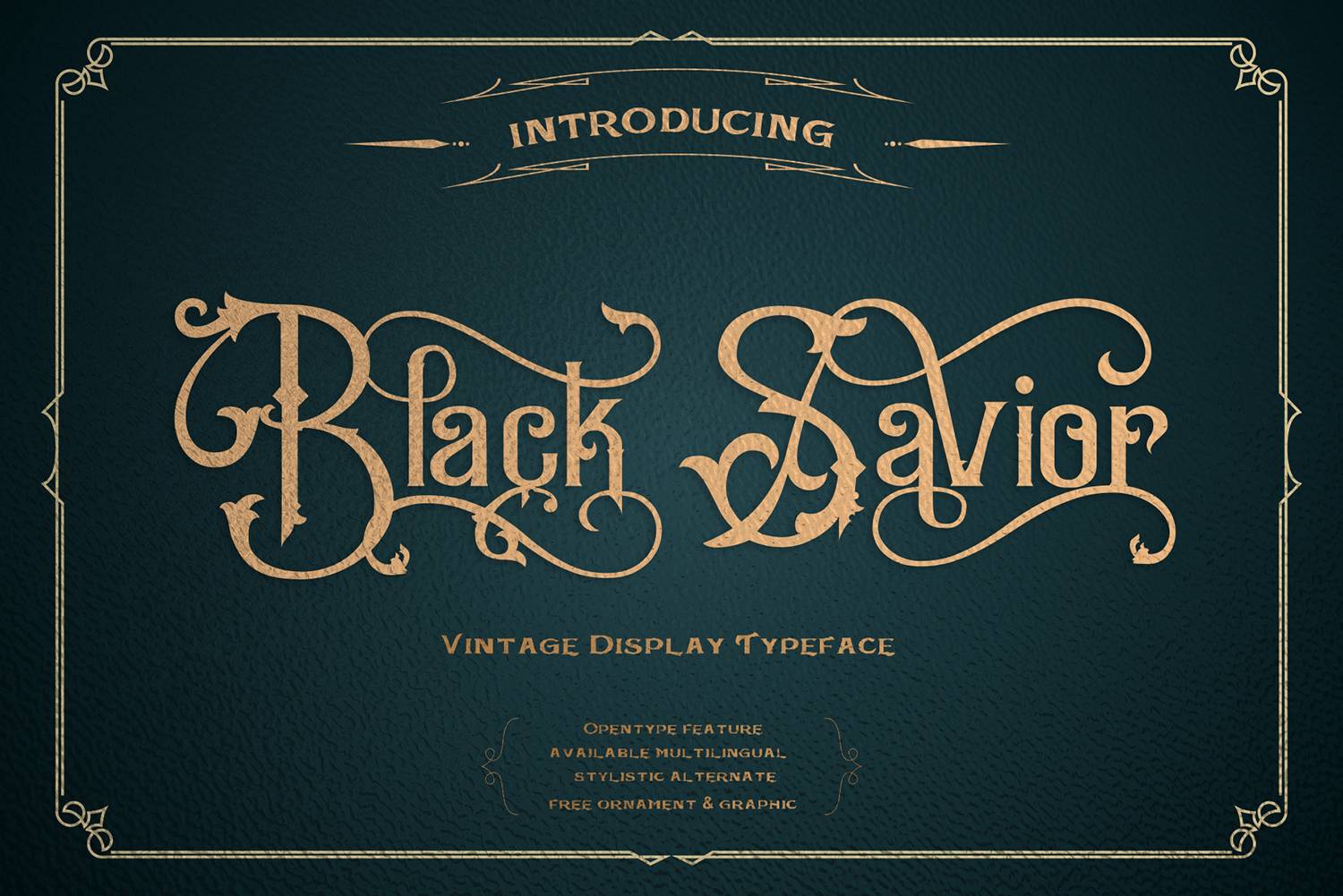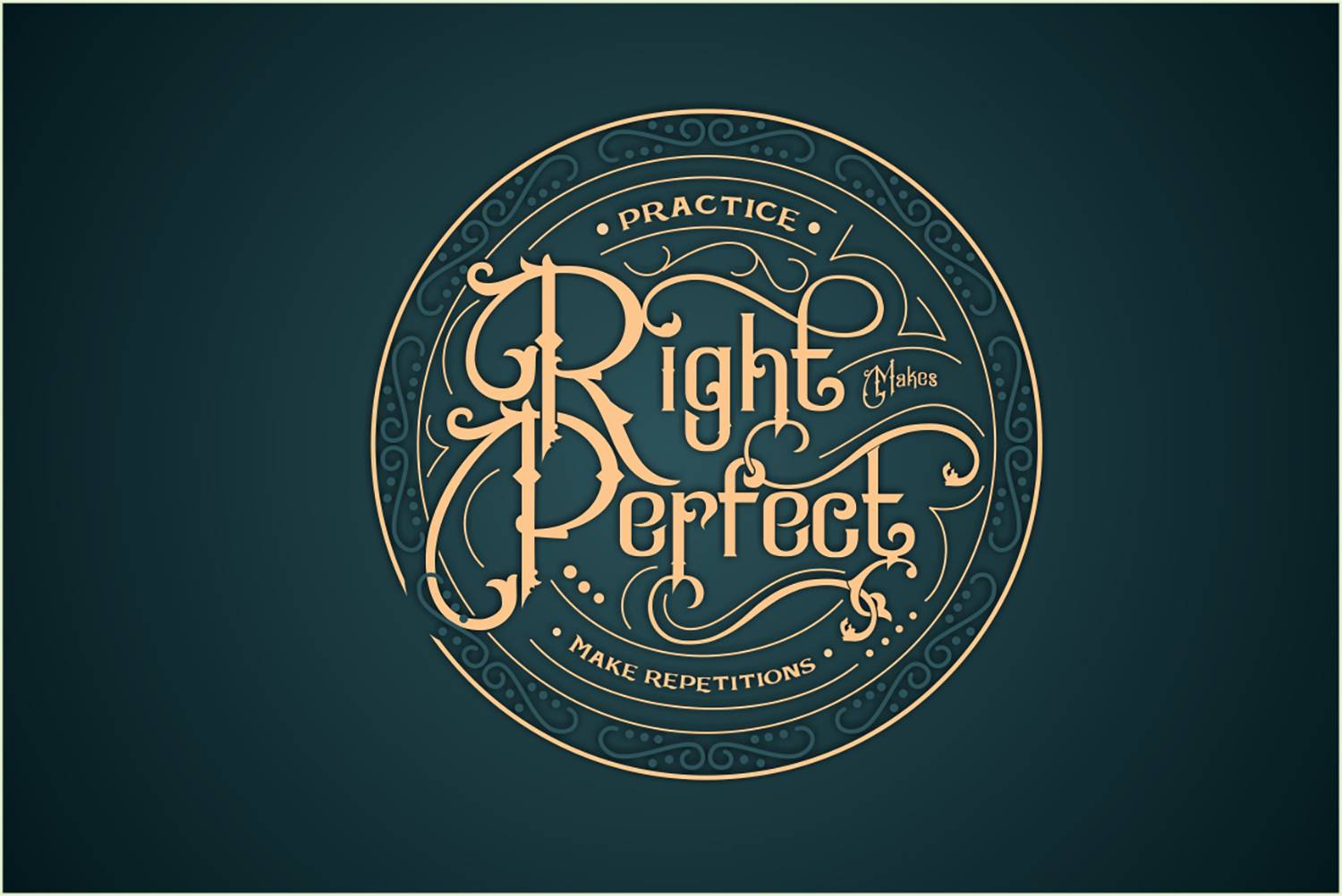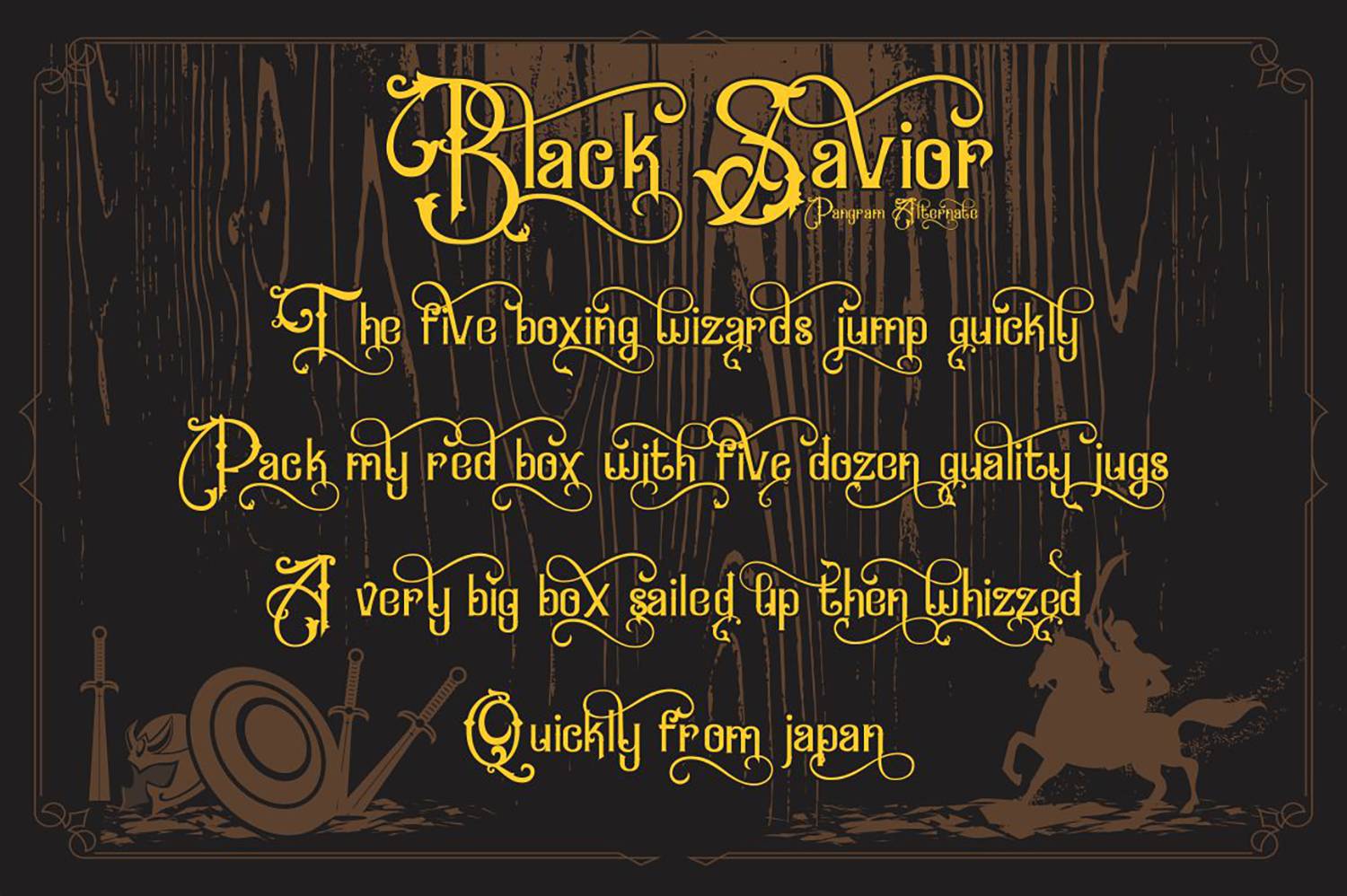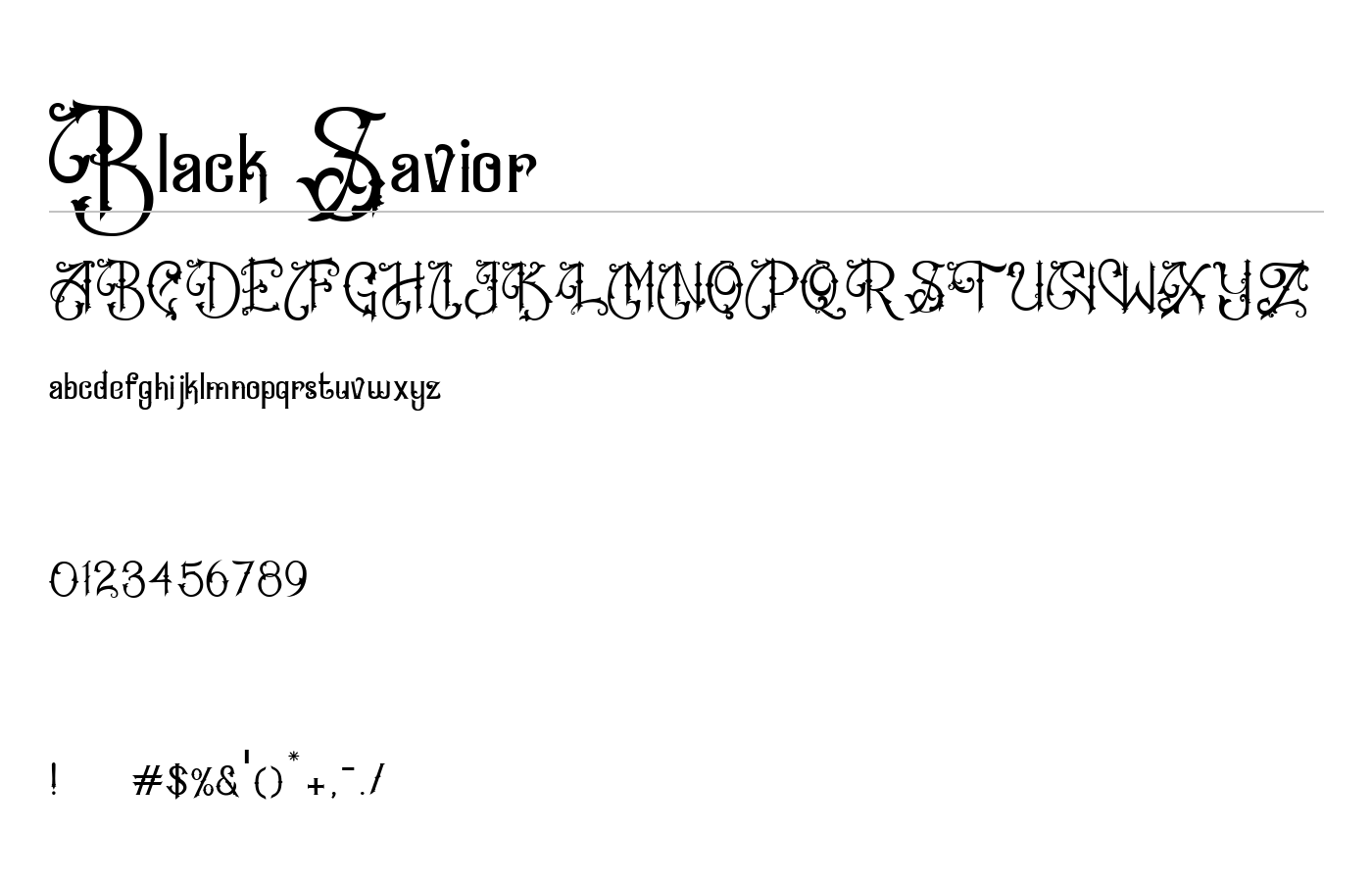
Black Savior is a highly decorative serif font with an ornate, gothic-inspired design, featuring intricate swirls and flourishes on its uppercase letters. It conveys a vintage, mysterious, and somewhat dramatic mood, making it ideal for use in logos, packaging, or headlines that seek a bold, artistic statement or a touch of Victorian elegance. This font works best in display settings where its unique, elaborate details can stand out without sacrificing readability.
Black Savior Font
About Black Savior Font
| Font family | Black Savior Font |
| Release date | 2019-05-02 |
| Designer | MOH.TAUFIQ |